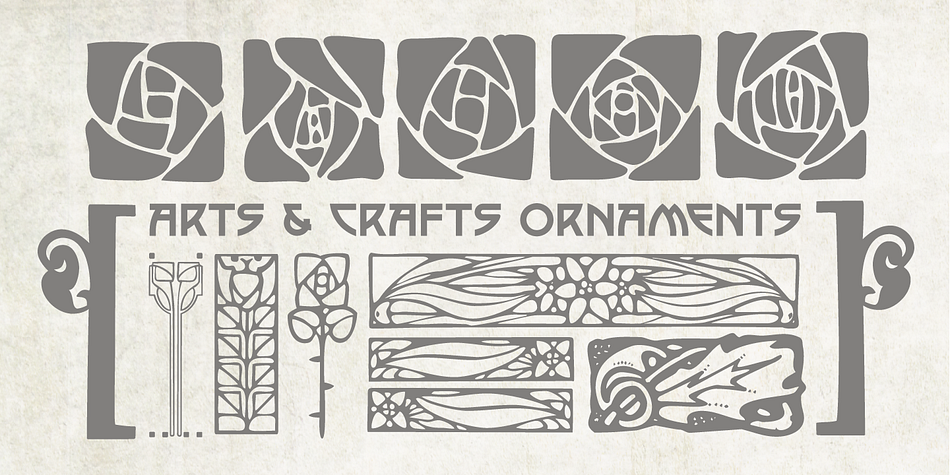
P22 ARTS AND CRAFTS
P22 Arts and Crafts is a multiple classification font family. This typeface has nine styles and was published by P22 Type Foundry.
Distinguished, mission styled fonts featuring an all-caps alphabet based on Dard Hunter’s famous Viennese style lettering which has become synonymous with the Roycroft movement.